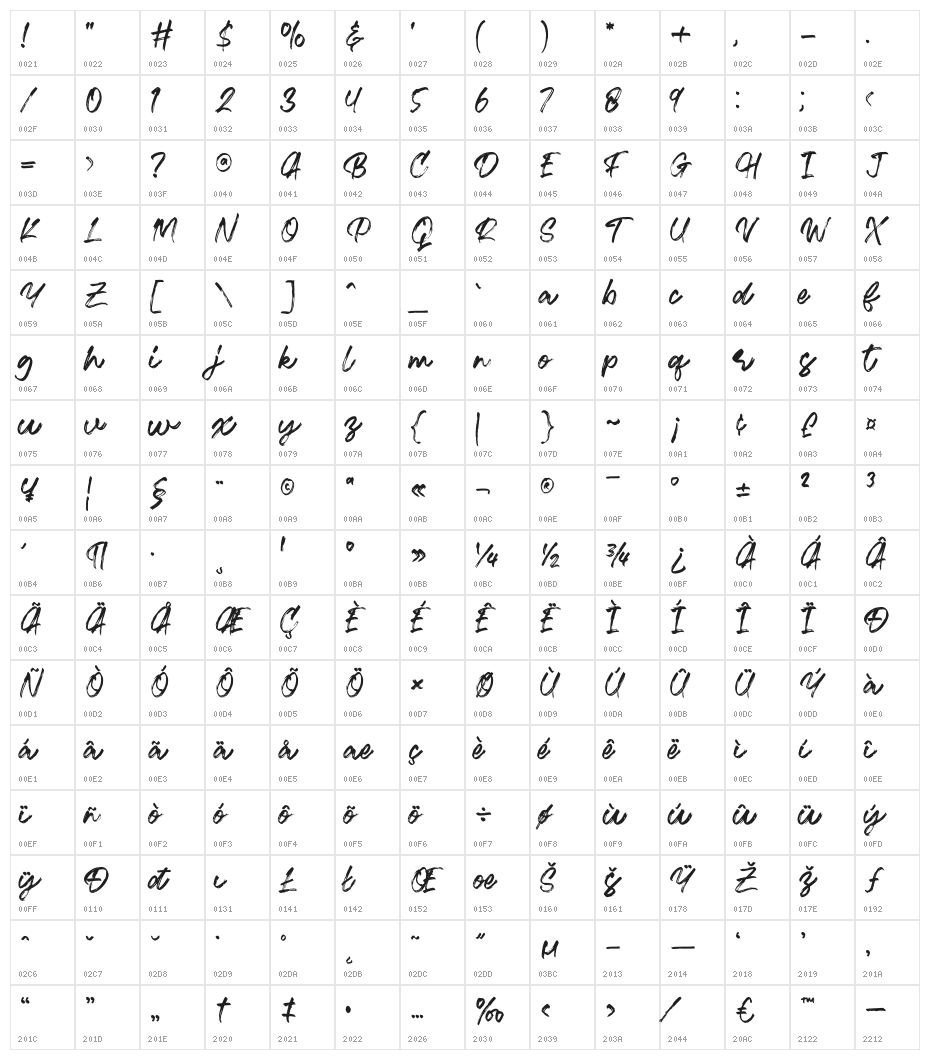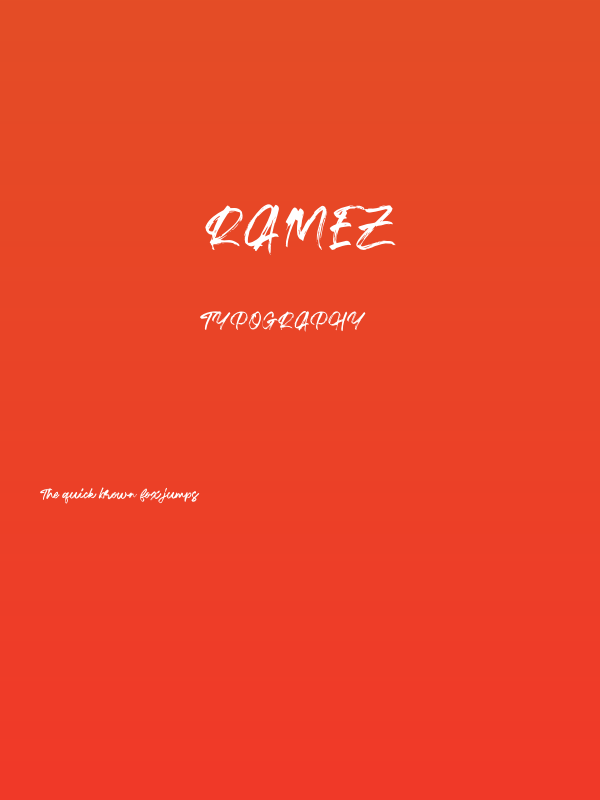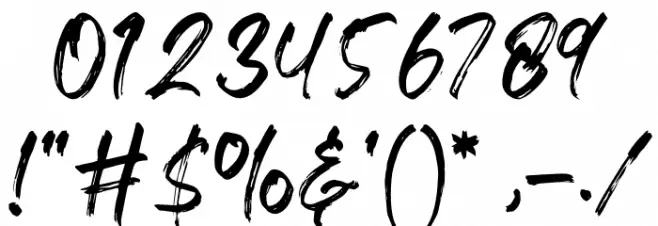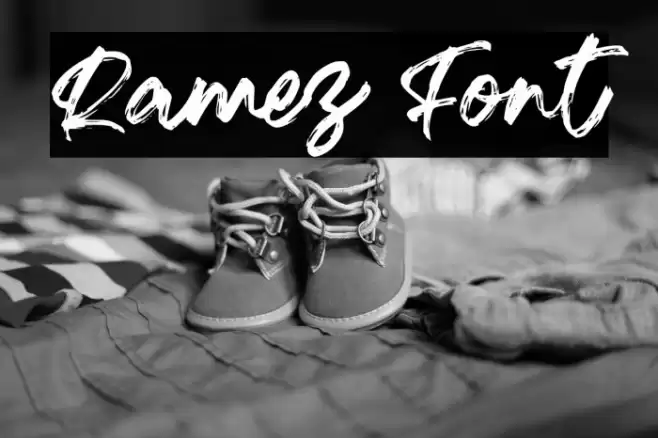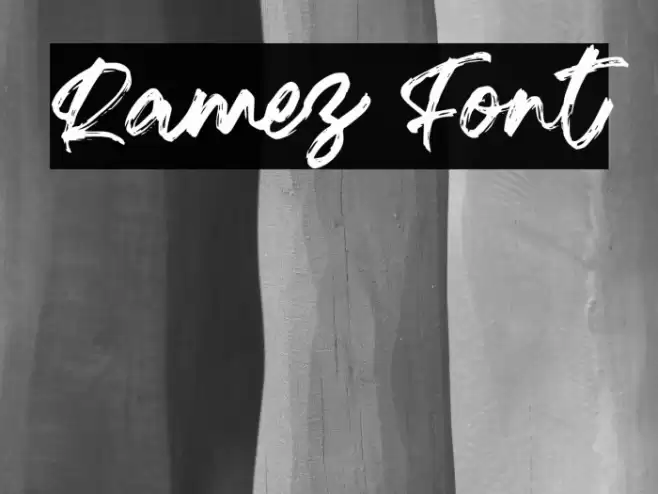
Ramez Font
Ramez Description
This font features a bold, expressive style with a handwritten appearance. The strokes are thick and dynamic, giving it a lively and energetic feel. Each character is unique, with varying angles and curves that add to its organic look. The uppercase letters are slightly more structured, while the lowercase letters flow more freely, enhancing the casual and artistic vibe. The numbers and special characters maintain the same boldness and flair, making them stand out. This font is perfect for projects that require a personal touch or a creative, informal aesthetic.
| Use Case | Logos, Headlines, Posters |
| Proposed Projects | Ideal for creative projects such as posters, invitations, branding, and social media graphics that require a personal and artistic touch. |